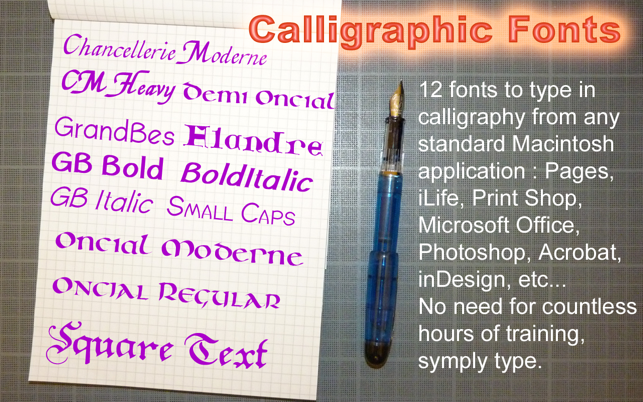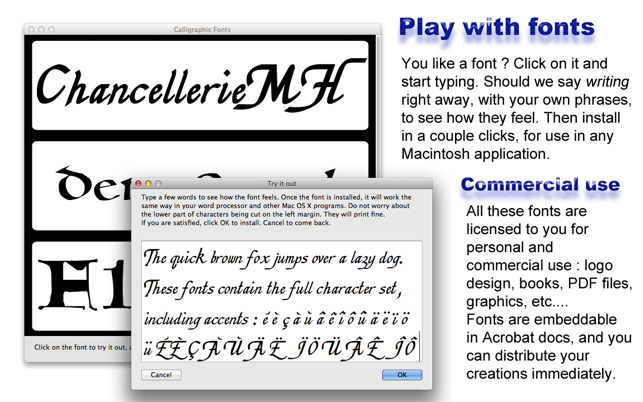
12 calligraphic fonts of all periods, from traditional middle ages Uncial and BlackLetters through Modern Chancery and contemporary GrandBes.
Type, it calligraphs. Perfect for invitations, postcards, weddings, menus, poetry, inspirational phrases, etc. Great license which lets you use the fonts for personal as well as business.